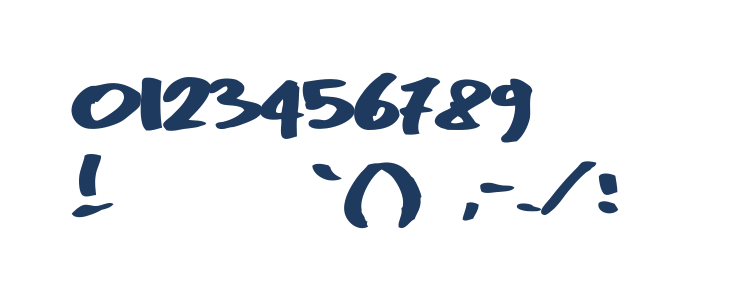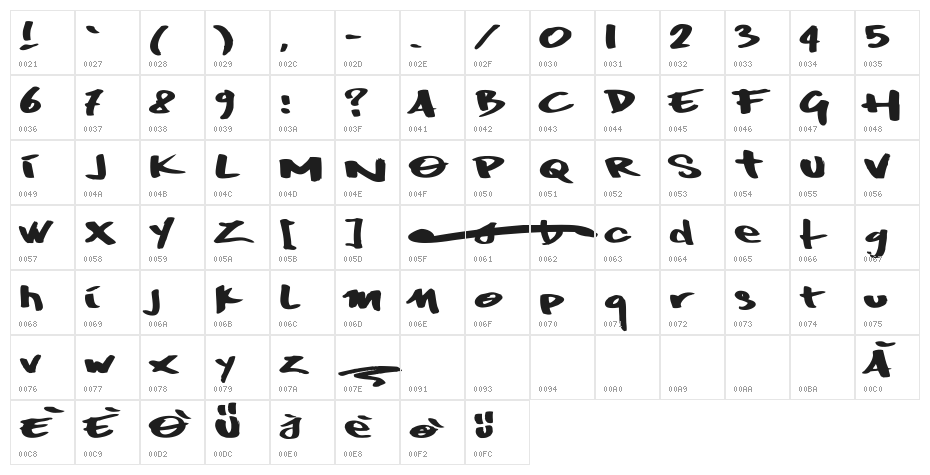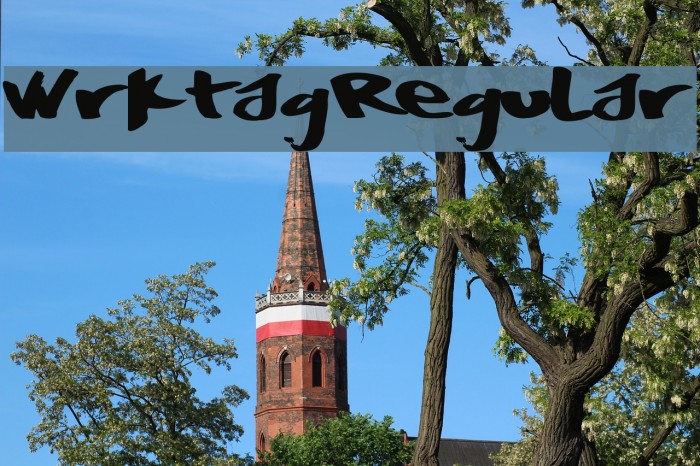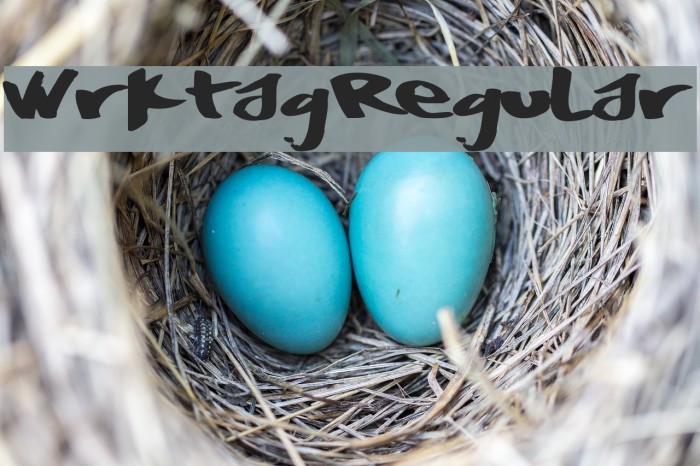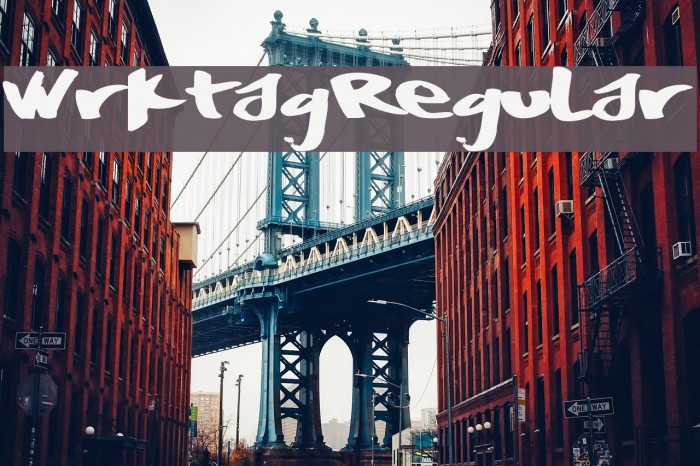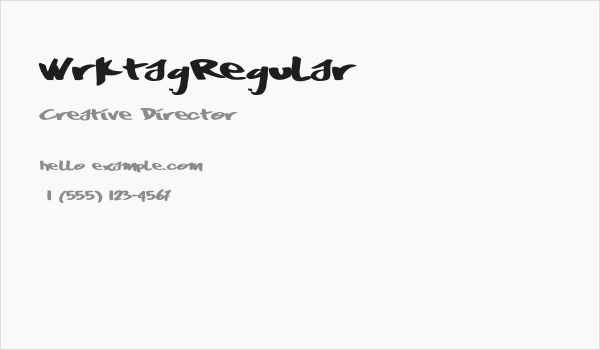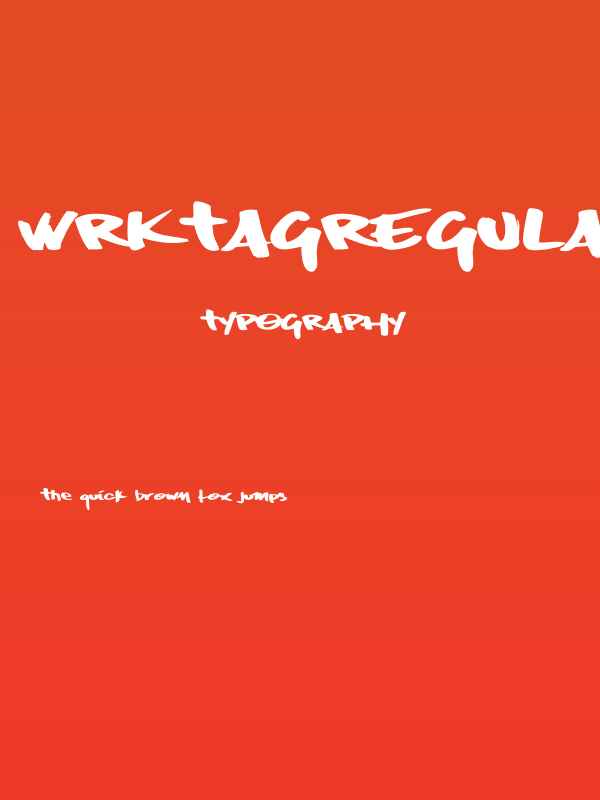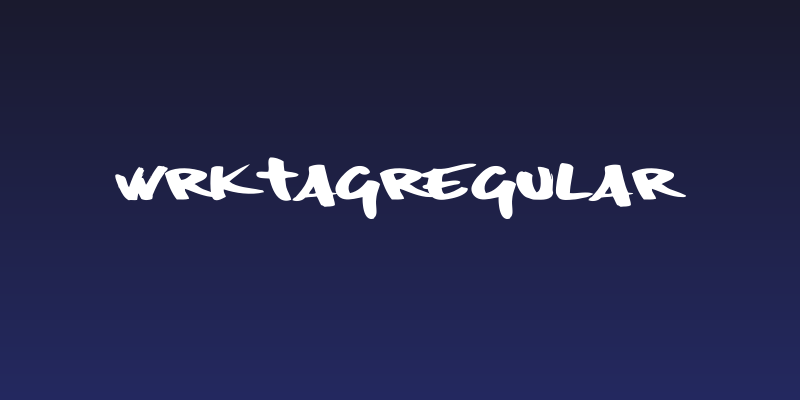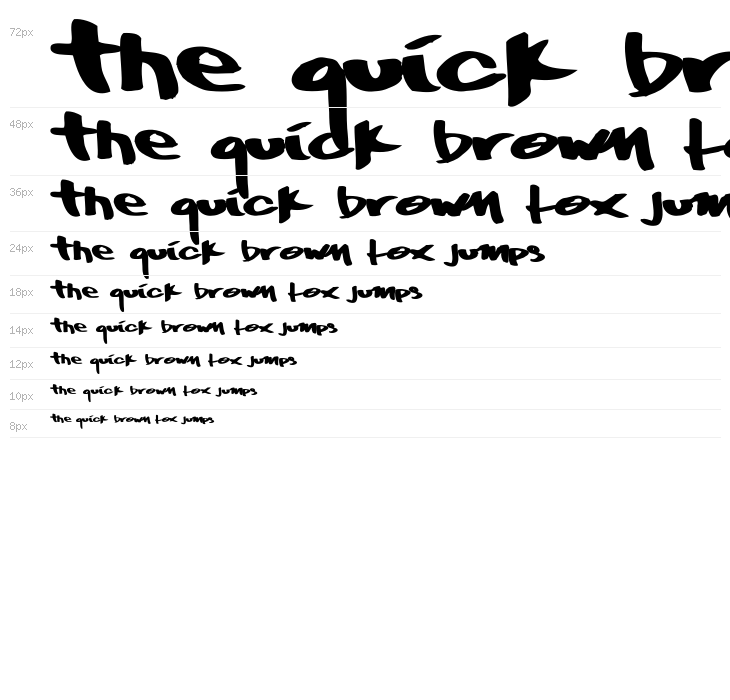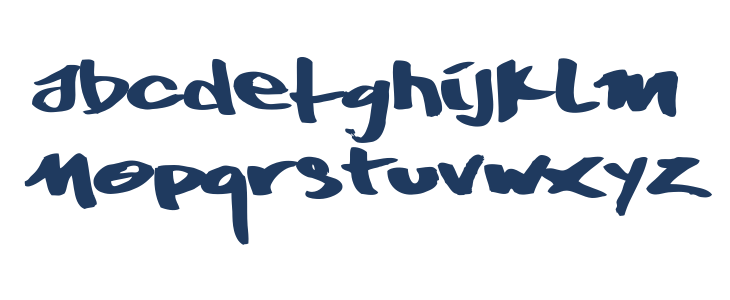
WrktagRegular Font
WrktagRegular Description
This font features a bold and expressive handwritten style, characterized by its thick, brush-like strokes that convey a sense of dynamism and energy. The letters are slightly irregular, adding a personal and informal touch to the text. The uppercase and lowercase letters maintain a consistent style, with rounded edges and a playful appearance. The numbers and special characters follow the same aesthetic, ensuring a cohesive look across all elements. This font's unique style makes it stand out, offering a creative and artistic feel that can enhance various design projects.
| Use Case | Logos, Headlines, Posters |
| Proposed Projects | Ideal for creative projects such as posters, invitations, branding, and social media graphics that require a personal and artistic touch. |